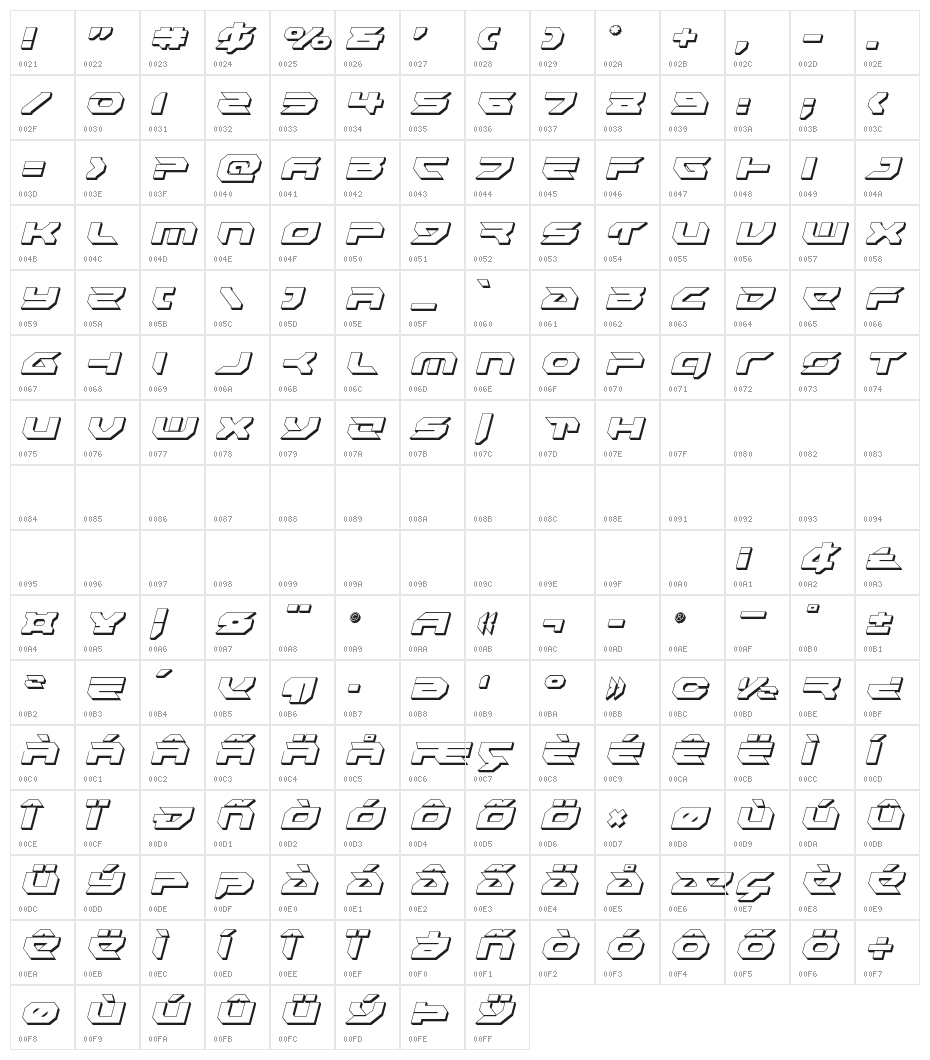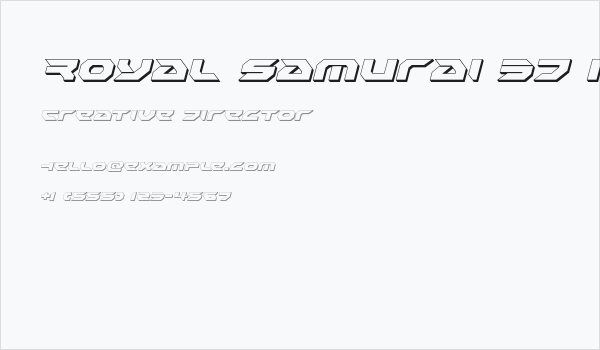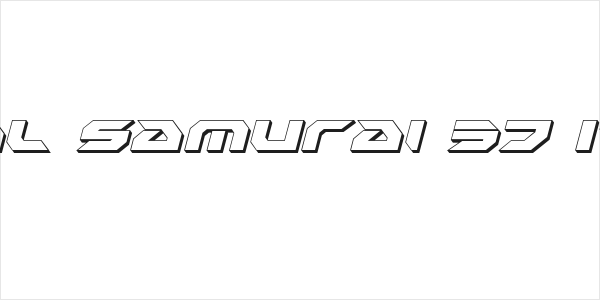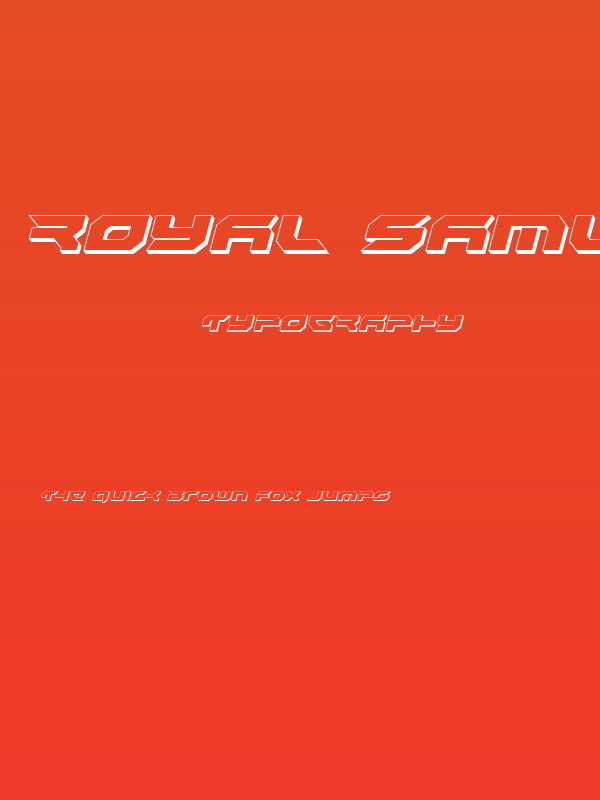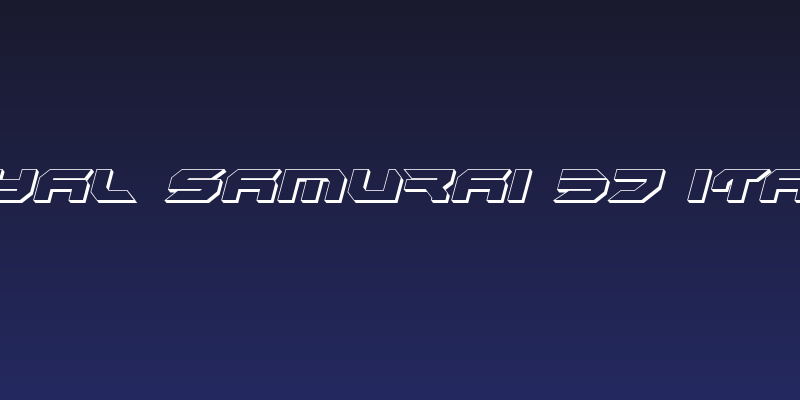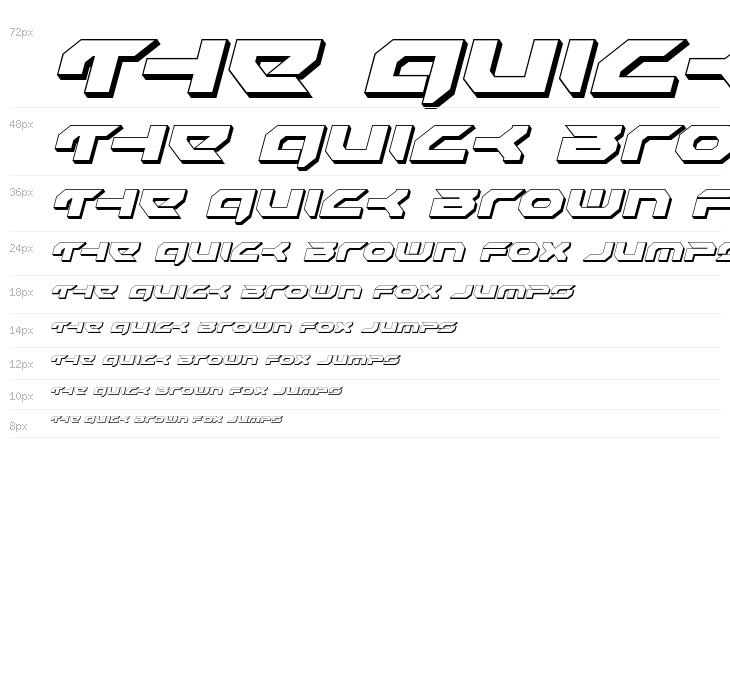
Royal Samurai 3D Italic Font
Royal Samurai 3D Italic Description
This font features a bold, futuristic design with a 3D effect that gives it a striking appearance. The characters are angular and geometric, with sharp edges and a sense of movement. The italic style adds a dynamic quality, enhancing its modern aesthetic. The uppercase and lowercase letters maintain a consistent style, while the numerals and special characters complement the overall design. The font's unique style makes it stand out, suitable for projects that require a bold and innovative look.
| Proposed Projects | Ideal for video game titles, sci-fi movie posters, technology branding, and futuristic event invitations. |